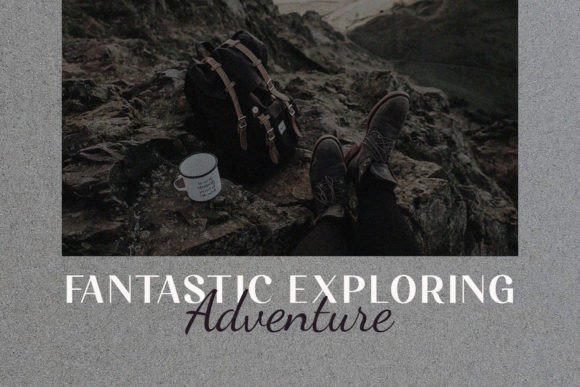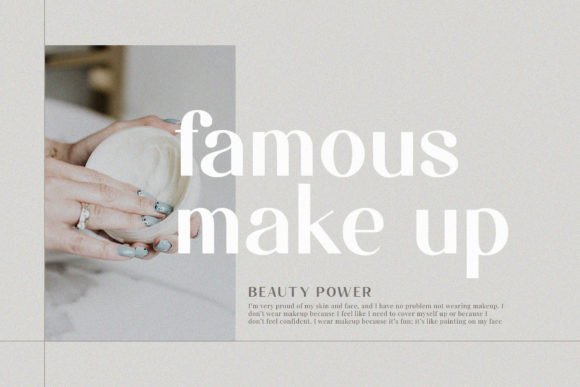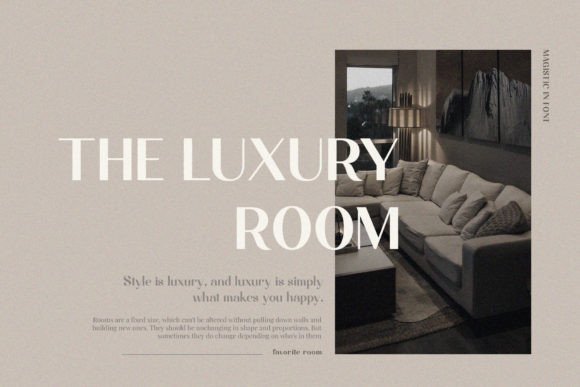
Introduction to Magistic Font
Magistic is a modern and stylish sans serif font.
👤 Author Graphicxell
Specially designed for luxury, elegant, feminine projects, this font is perfectly suitable for creating modern, chic designs .
Key Features of Magistic Font
Why Choose Magistic Font?